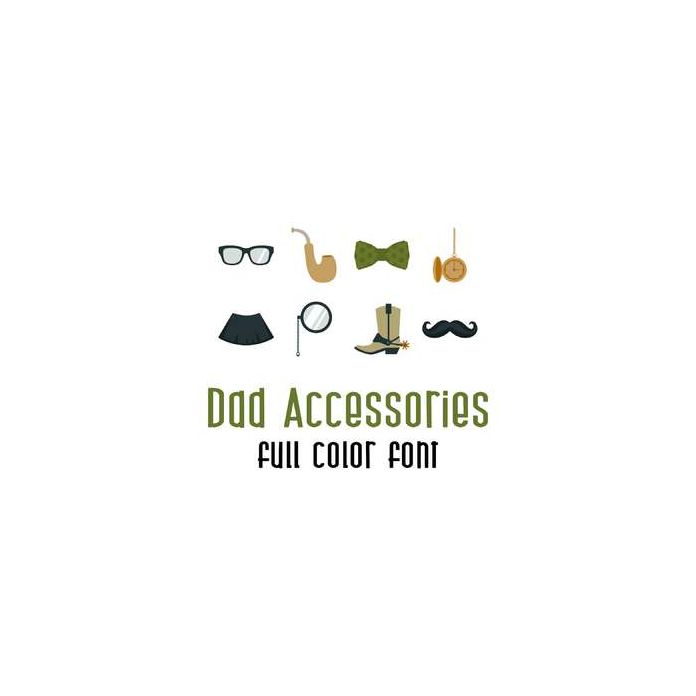
This fun doodlebat font features 26 different dad accessories images. Perfect for Father's Day, dads, grandpas, uncles or any guy in your life! Use for cards, gifts, decor, crafts, scrap book pages, planner stickers and more!